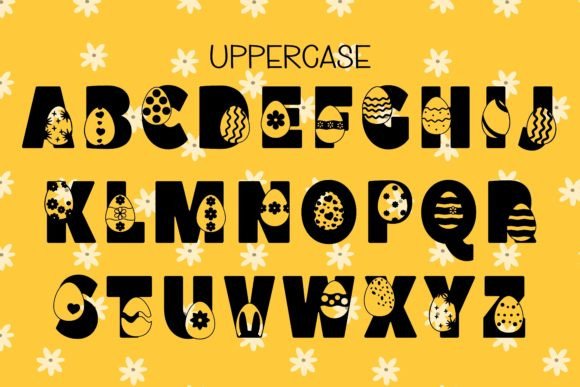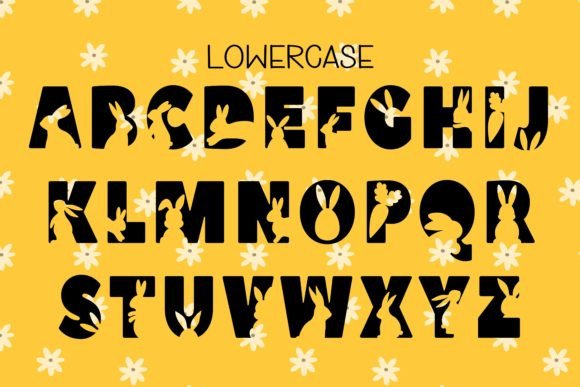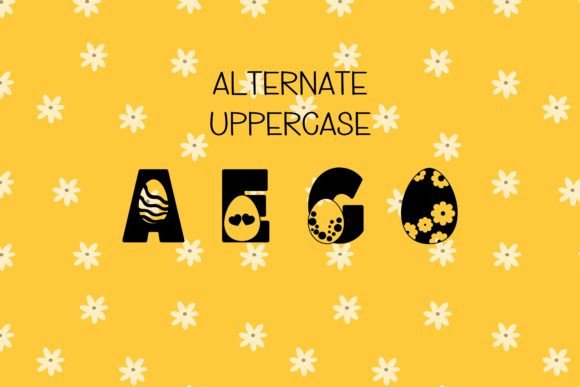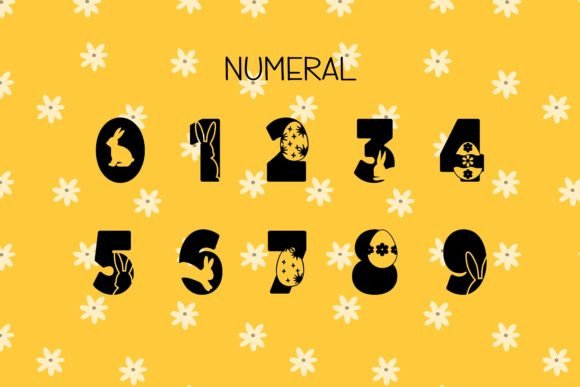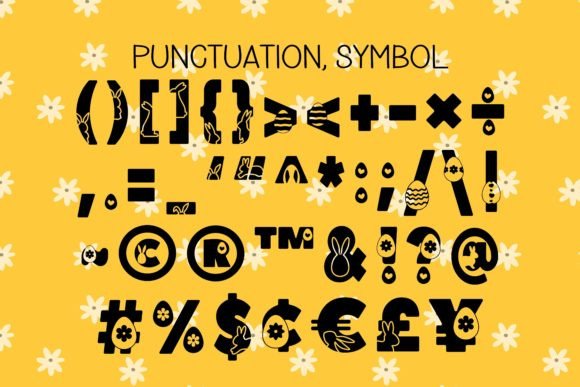
The Joy of Happy Easter Egg Font: A Designer’s Delight
I’ll never forget the time I was working on a last-minute Easter project for a client, and I just couldn’t find the perfect font to match the playful and cheerful vibe they wanted. I scoured the internet, tried out dozens of fonts, but nothing seemed quite right. That was until I stumbled upon the Happy Easter Egg font. It was love at first sight! 🎉
Designed in a cute and adorable decorative font style, Happy Easter Egg is perfect for any Easter project, back to school themes, birthday party decorations, and more. Its bright and fun touch instantly elevates any design, making it a must-have for designers, crafters, and creative hobbyists.
- ✨ The font’s playful and whimsical design makes it perfect for Easter and spring-themed projects.
- ✅ The PUA encoding makes it easy to access all glyphs and swashes, giving you endless creative possibilities.
- 🎉 The font’s versatility allows you to use it for a wide range of projects, from kids’ party decorations to educational materials.
⚠️ One thing to note is that, like any decorative font, Happy Easter Egg might not be the best choice for body text or long blocks of text. Its playful design is better suited for headings, titles, and short phrases.
🤔 Additionally, some users might find that the font’s eccentricities make it tricky to pair with other fonts. But with a little experimentation, you can find the perfect match.
The Story Behind Happy Easter Egg Font
Happy Easter Egg was designed with one goal in mind: to bring a little joy and whimsy to your Easter and spring-themed projects. The designer, inspired by the colorful and playful world of Easter eggs, created a font that’s both fun and functional.
With its cute and adorable design, Happy Easter Egg is sure to become a favorite in your font collection. Whether you’re a designer, crafter, or creative hobbyist, this font is sure to bring a smile to your face and a touch of springtime magic to your projects.